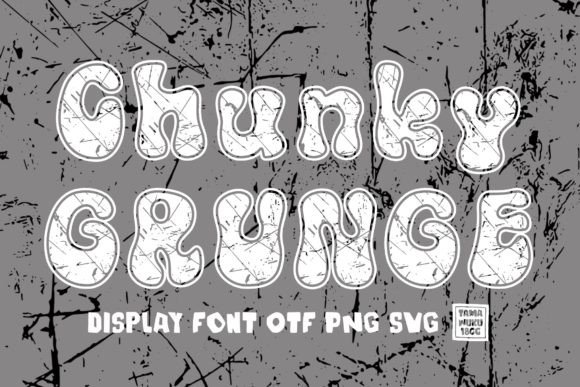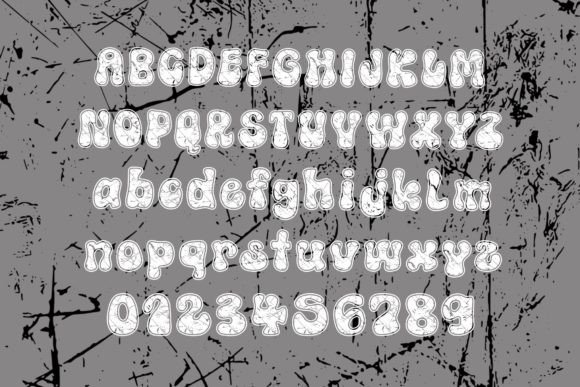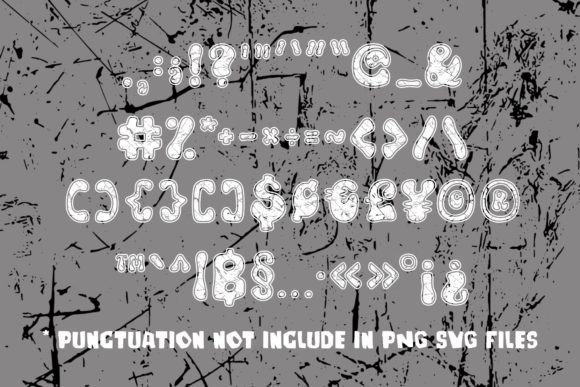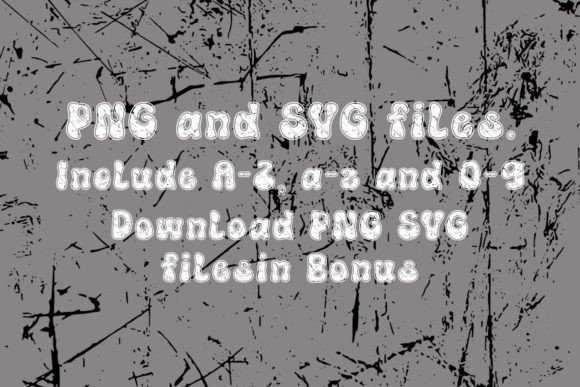
Chunky Grunge Font
About the Chunky Grunge Font
Meet Chunky Grunge Font, a stunning font that brings a touch of elegance and professionalism to any design. Chunky Grunge is a vintage and grunge font. This font is the perfect fit for all of your logos, branding, social media, crafty DIY projects, and much more!
Chunky Grunge Font Usage Examples
Chunky Grunge Font Example